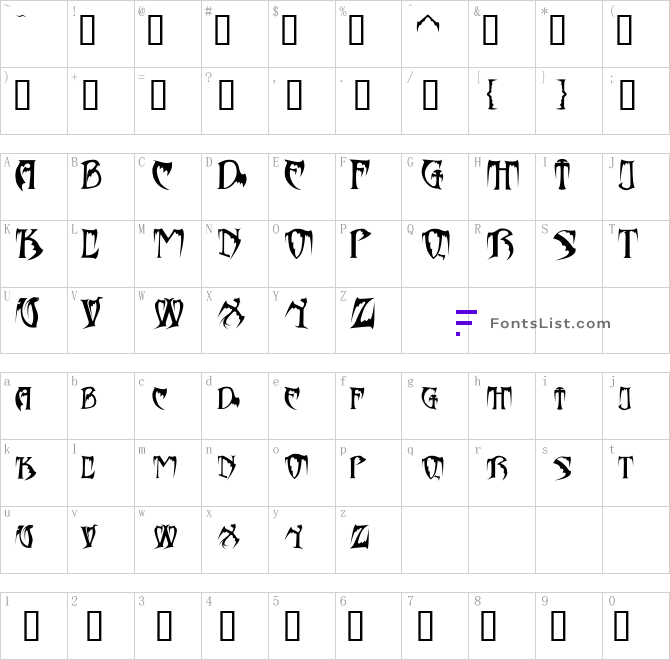
- Font Name:MurcielagosyDragones-Abaddon
Bats-Dragons-Abaddon.ttf is a very beautiful artistic font, Bats-Dragons-Abaddon.ttf is widely used in the design and printing of various books and pictures,Bats-Dragons-Abaddon.ttf has a strong visual impact,Bats-Dragons-Abaddon.ttf is a commonly used font in newspapers, magazines and books, and is used in posters, e-commerce Poster design, store design, logo design, font design and other fields.Bats-Dragons-Abaddon.